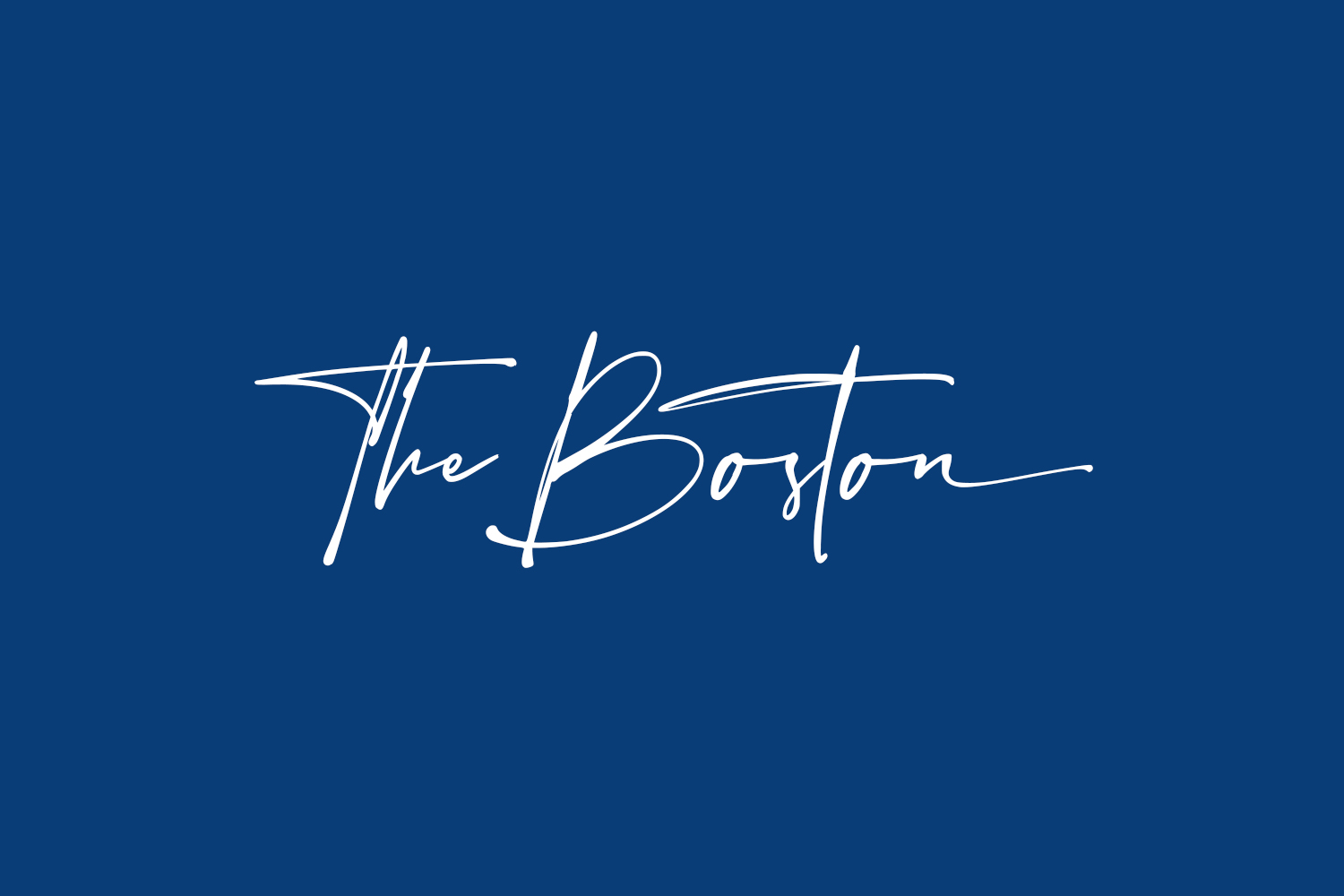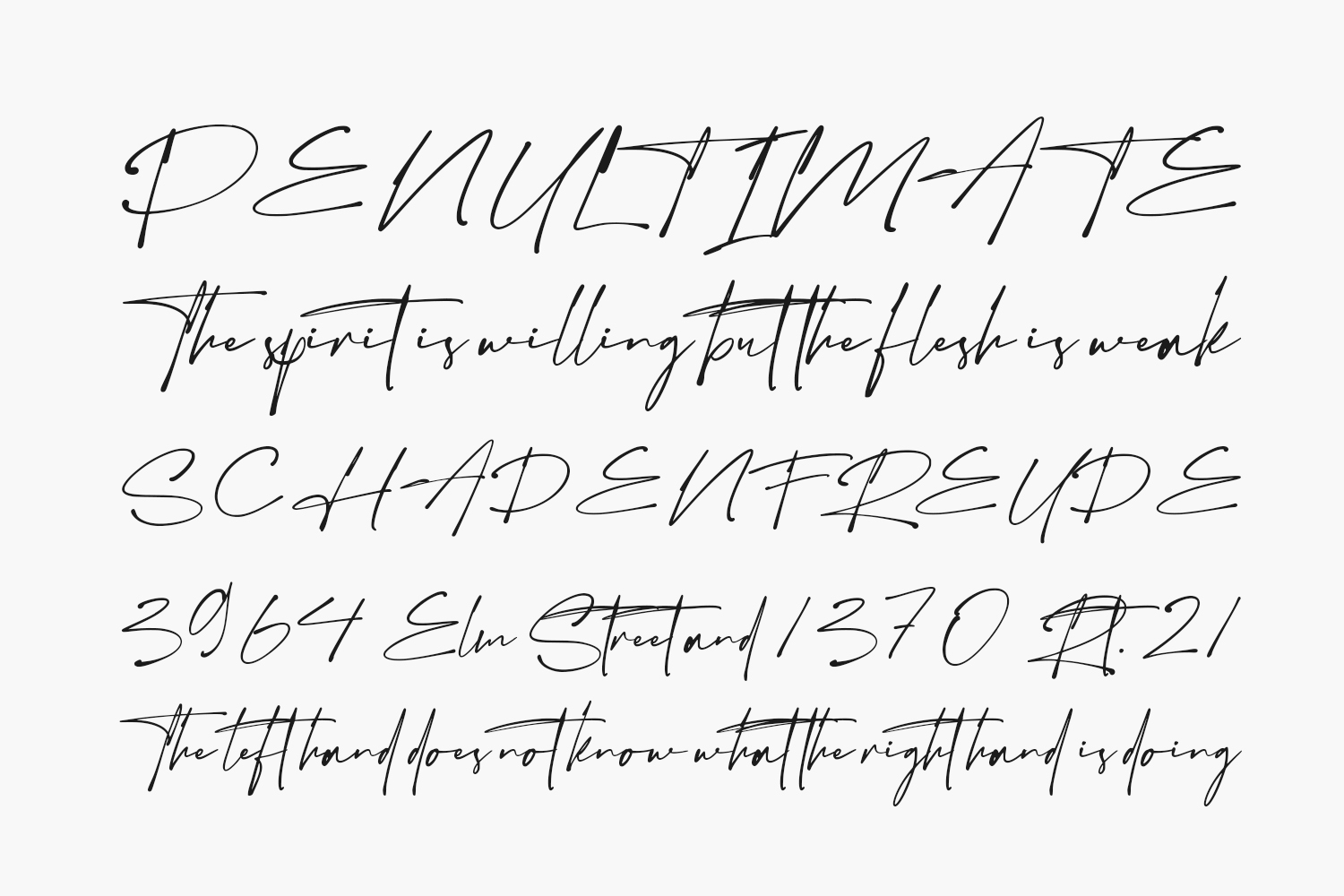
The Boston Free Font is a lovely and thin lettered script font that exudes elegance and class. This font was particularly crafted for those who need a beautiful and refreshing look to their designs. The Boston Free Font was designed by Vultype and is free for personal use only. Please purchase the full version for commercial use.